- Fonts based on the “UNICEF Children’s Handwriting Contest” to be used across official UNICEF Korea Committee content
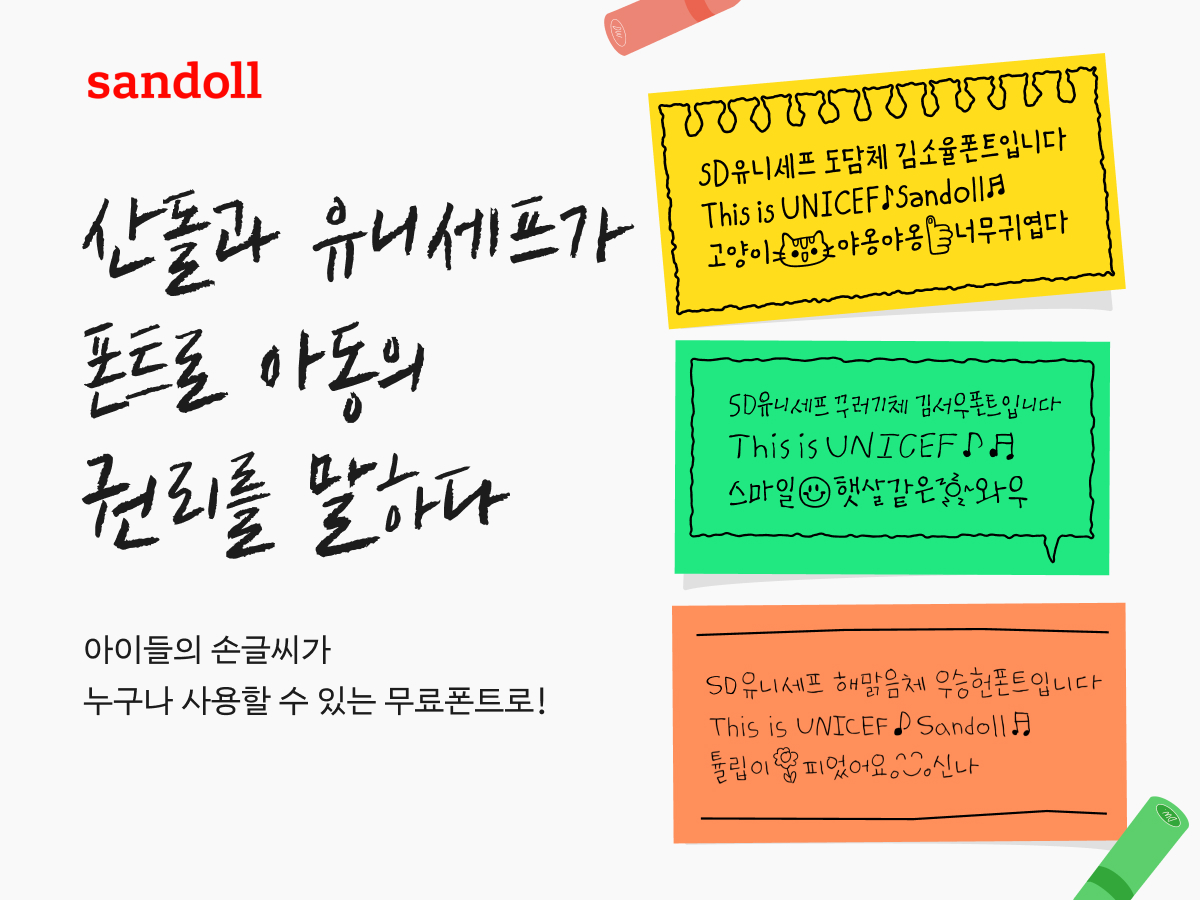
Sandoll Co., Ltd. (CEO Young ho Yun), a content-creator-focused font platform company, announced on the 20th that it has released three “UNICEF Children’s Handwriting Fonts” in collaboration with the UNICEF Korea Committee to commemorate World Children’s Day.
This project reflects Sandoll’s core value of “altruistic expertise” and was initiated to realize social value through Sandoll’s font-making technology and craft while contributing to positive impact for children. The completed fonts are available for free on SandollCloud, the Bakey (iOS) mobile app, and the UNICEF Korea Committee website.
A defining feature of this project is that the three children selected from the first “UNICEF Children’s Handwriting Contest” visited Sandoll’s headquarters to participate directly in the initial drawing and writing process, which became the foundation for the font development. Sandoll meticulously analyzed the children’s handwriting and doodle elements and also created accompanying dingbat fonts, enabling expressive use in mobile environments.
The newly developed fonts will be used broadly across UNICEF Korea Committee’s official content, including publications related to the Convention on the Rights of the Child, global online fundraising campaigns, and materials for UN-designated international observances.
The three released fonts include: SD UNICEF Hearty, based on the neat and even handwriting of grand prize winner Kim So-yul, SD UNICEF Sunny, capturing the lively pencil strokes of kindergarten division top-prize winner Woo Seung-heon, and SD UNICEF Bubbly, reflecting the strong, ink-textured writing of elementary division top-prize winner Kim Seo-woo.
Sandoll expects this project to serve as a foundation for expanding its technology-driven social contribution initiatives, as well as spreading positive awareness of children’s rights protection.
A Sandoll representative stated, “This project is a meaningful example of Sandoll’s value of altruistic expertise being translated into real social impact. It is especially significant that the children’s handwriting comes alive again in new messages through Sandoll’s technology,” adding, “Sandoll will continue to pursue projects that realize social value through font innovation.”